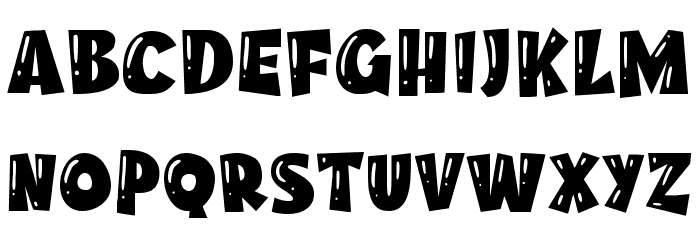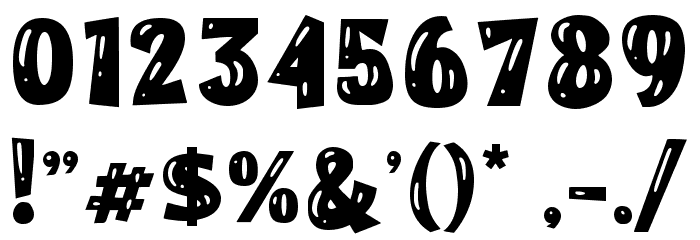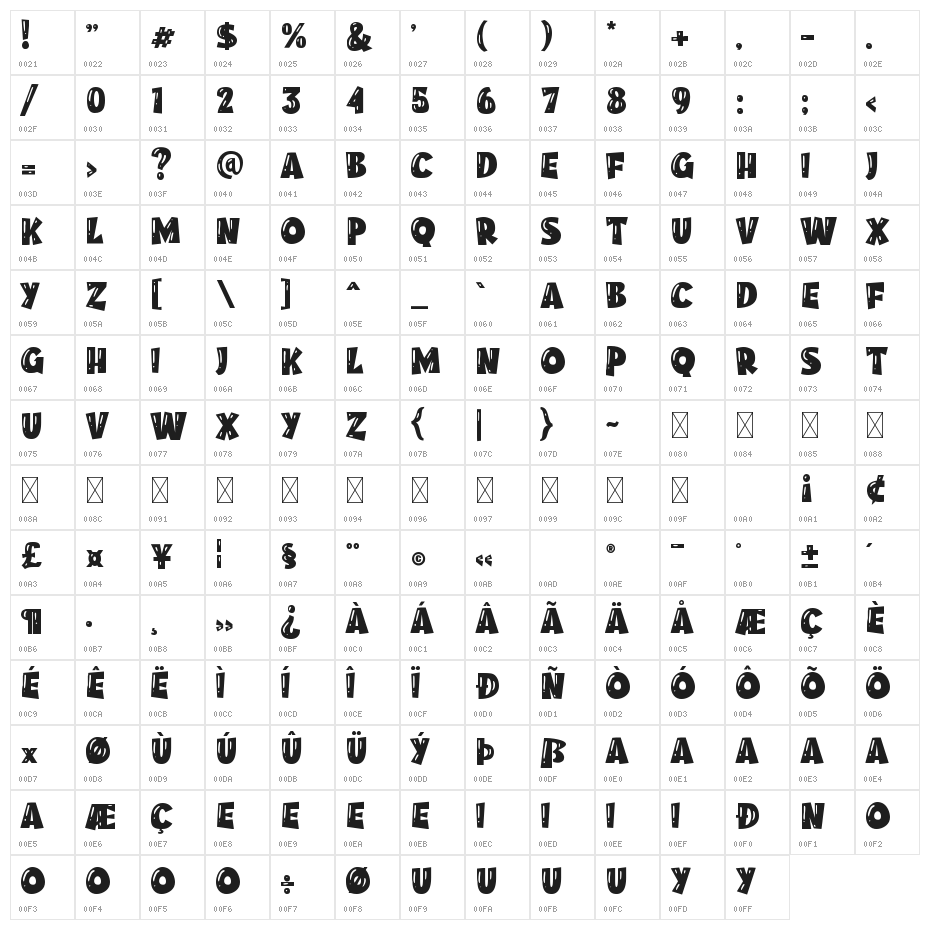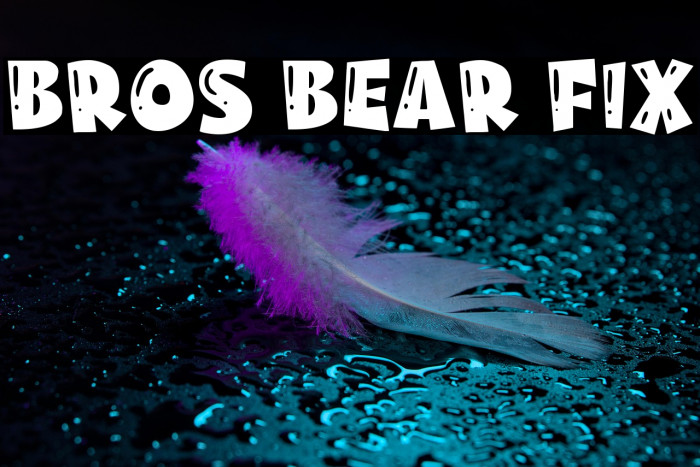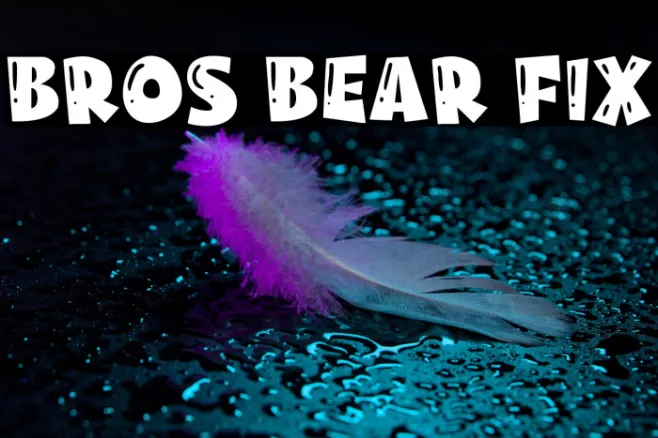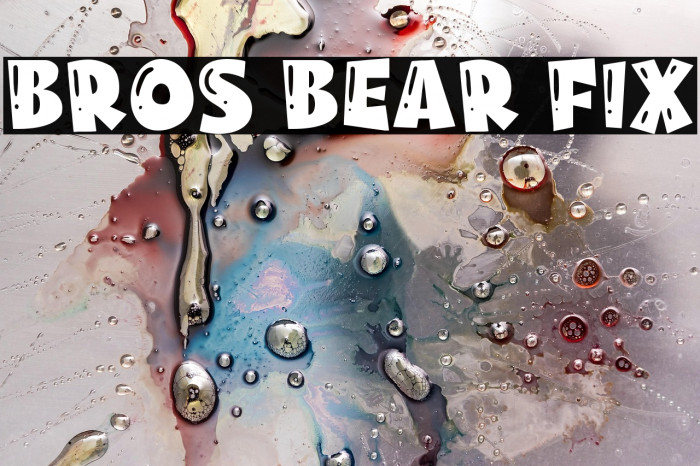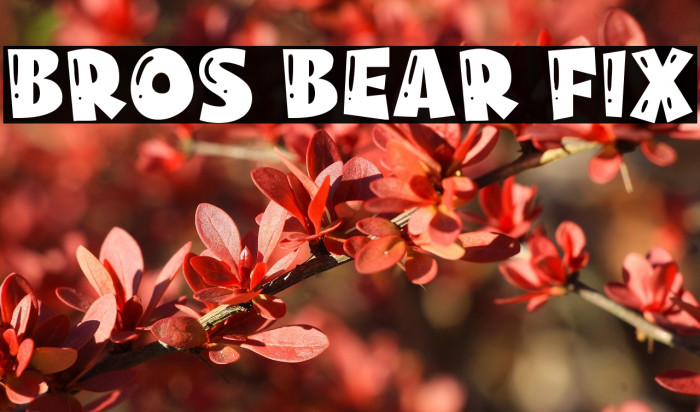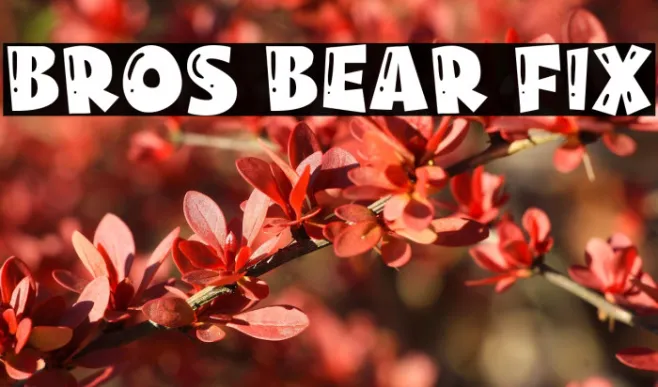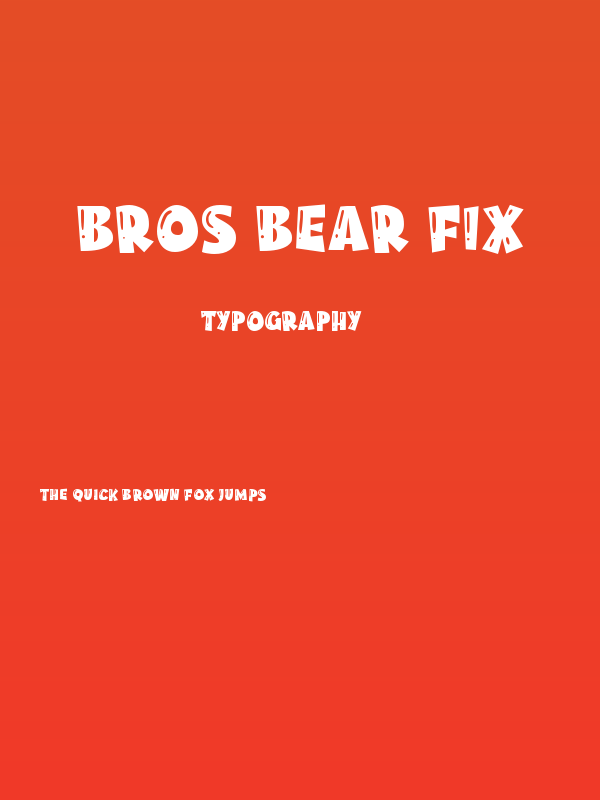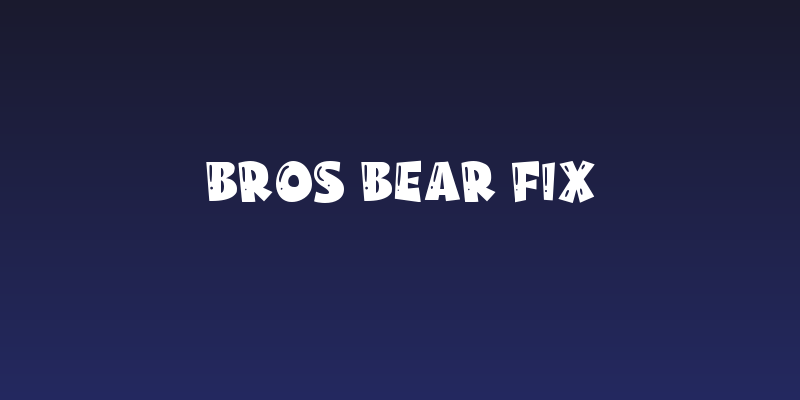
Bros Bear Fix Font
This playful and bold font features a unique, cartoonish style with thick, uneven strokes and quirky cutouts that add a sense of fun and whimsy. The characters are slightly tilted, contributing to a dynamic and lively appearance. The uppercase and lowercase letters maintain a consistent style, with rounded edges and a chunky feel that enhances readability while maintaining a playful aesthetic. The numbers and special characters follow the same design principles, ensuring a cohesive look across all elements. This font is perfect for projects that require a touch of humor and creativity, making it ideal for children's books, comic strips, or playful branding.
A bold, playful font with cartoonish, uneven strokes and quirky cutouts.
- Font: Bros Bear Fix
- Proposed Projects: Ideal for children's books, comic strips, playful branding, and creative posters.
- Overall Style: Playful, Cartoonish, Fun